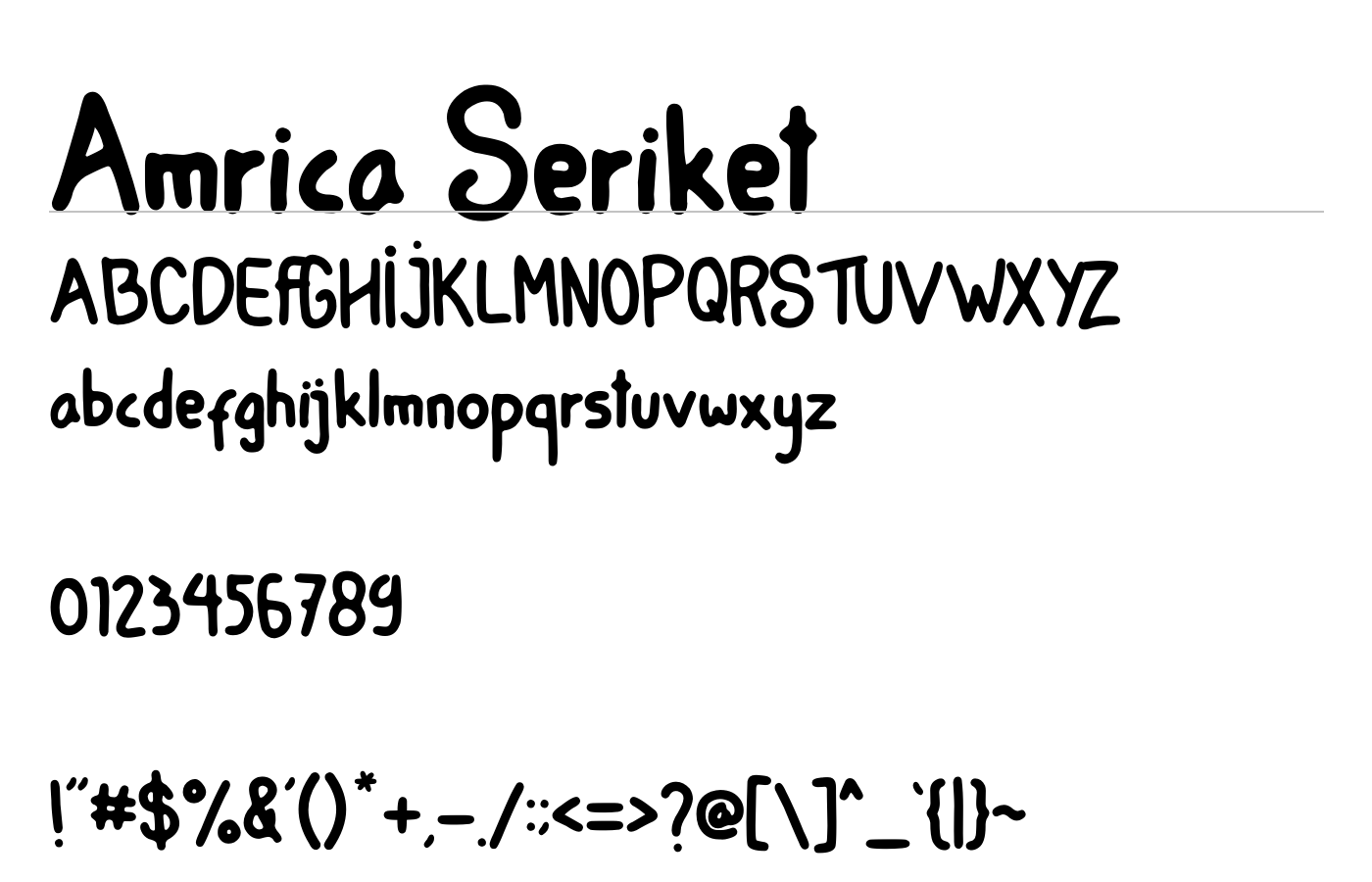
Amrica Seriket is a playful and quirky sans serif font with a hand-drawn, casual feel. Its uneven stroke widths and slightly irregular shapes give it a friendly, approachable personality that works well for informal designs, children’s content, and creative projects. This font is ideal for eye-catching headlines, logos, and any context where a fun and whimsical touch is desired.
Amrica Seriket Font